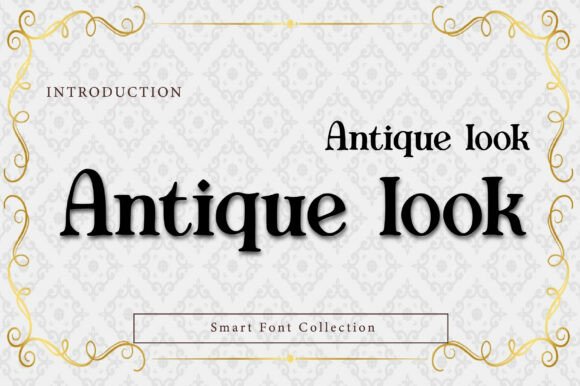
The Timeless Charm of Antique Look Font
I’ll never forget the design project that led me to discover the Antique Look font. I was working on a branding campaign for a luxury watchmaker, and I needed a font that would evoke a sense of heritage and sophistication. After hours of scouring font libraries and trying out different typefaces, I stumbled upon Antique Look. Its elegant curves and vintage details instantly transported me to a bygone era, and I knew I had found the perfect fit.
A Closer Look at Antique Look
Antique Look is a classic serif display typeface that draws inspiration from old printed books and traditional letterpress typography. Its smooth curves, balanced proportions, and subtle vintage details create a timeless and elegant appearance that’s perfect for editorial design, book titles, logos, branding, invitations, packaging, and any project that requires a refined antique or heritage-style aesthetic.
What I Love About Antique Look
- ✨ Elegant and refined design that’s perfect for high-end branding and editorial projects
- ✅ Smooth curves and balanced proportions that create a sense of harmony and sophistication
- 💯 Subtle vintage details that add character and depth to the font
- 🎨 Highly versatile and adaptable to different design contexts
While Antique Look is an exceptional font, there are a few quirks to be aware of:
- 🤔 Limited use of OpenType features, which may limit some advanced typographic capabilities
- ⚠️ Not ideal for body text or long-form reading due to its display-focused design
The Story Behind Antique Look
Antique Look was designed by a team of typographers who were inspired by the classic printed books and traditional letterpress typography of the past. They wanted to create a font that would evoke a sense of heritage and sophistication, while also being highly versatile and adaptable to different design contexts.
Q: What is the best way to use Antique Look in a modern design project?
A: Antique Look is best used as a display font, such as for titles, headings, or logos. Its elegant and refined design makes it perfect for high-end branding and editorial projects.
Q: Can I use Antique Look for body text or long-form reading?
A: While Antique Look is an exceptional font, it’s not ideal for body text or long-form reading due to its display-focused design. For body text, consider using a font with a more traditional or classic look.
Q: Is Antique Look suitable for digital use?
A: Yes, Antique Look is suitable for digital use, but it’s best used in high-resolution contexts, such as on a website or in a digital publication. Its elegant and refined design makes it perfect for creating a sophisticated online presence.